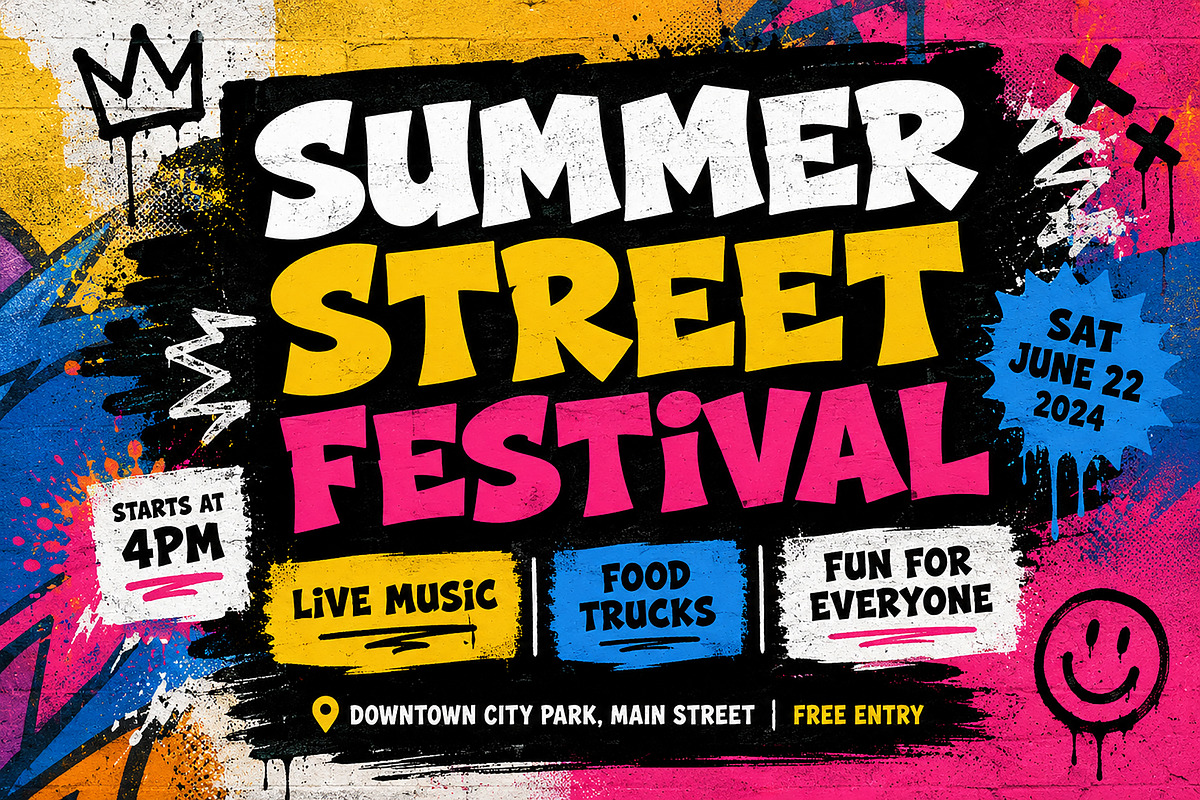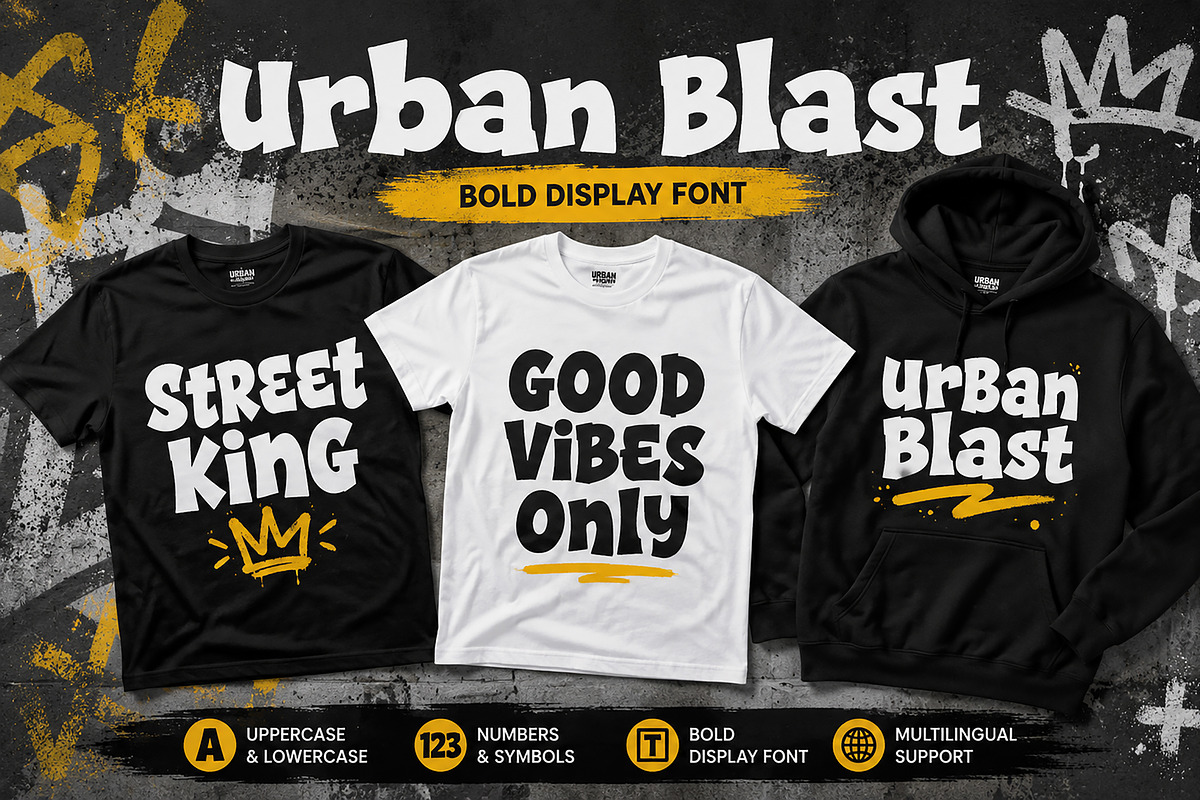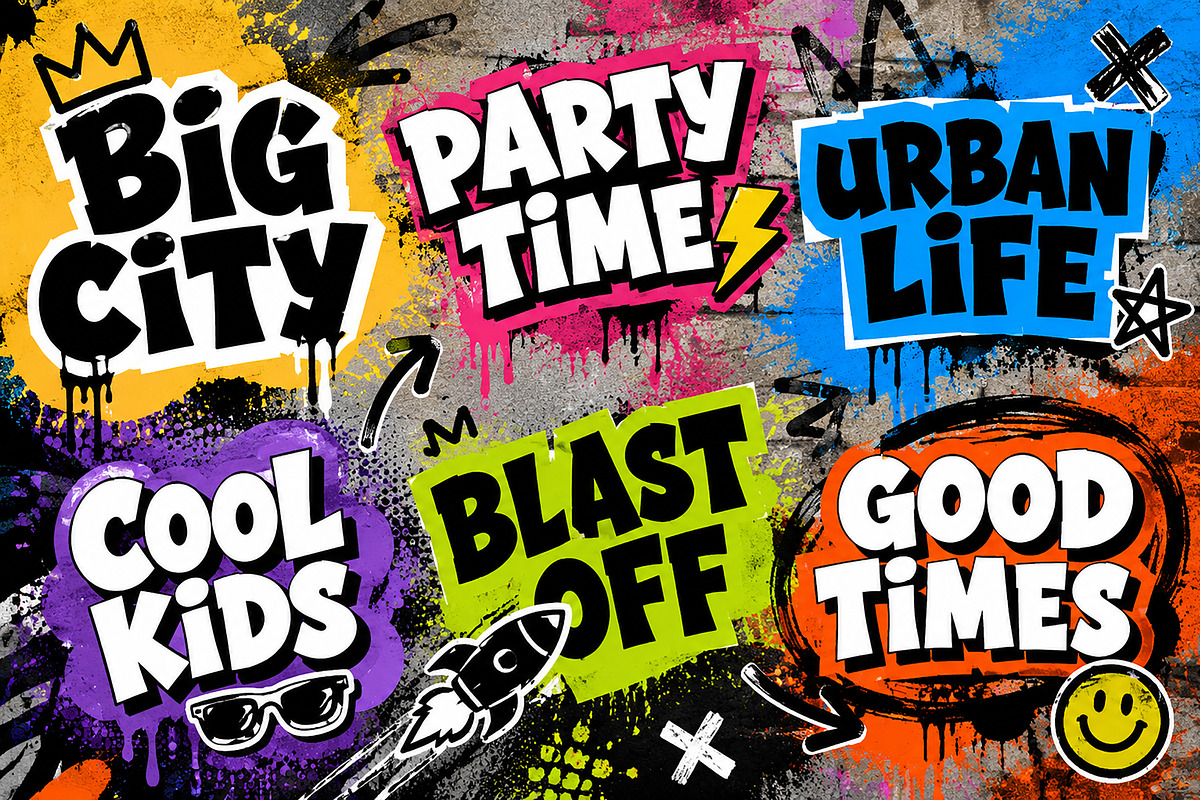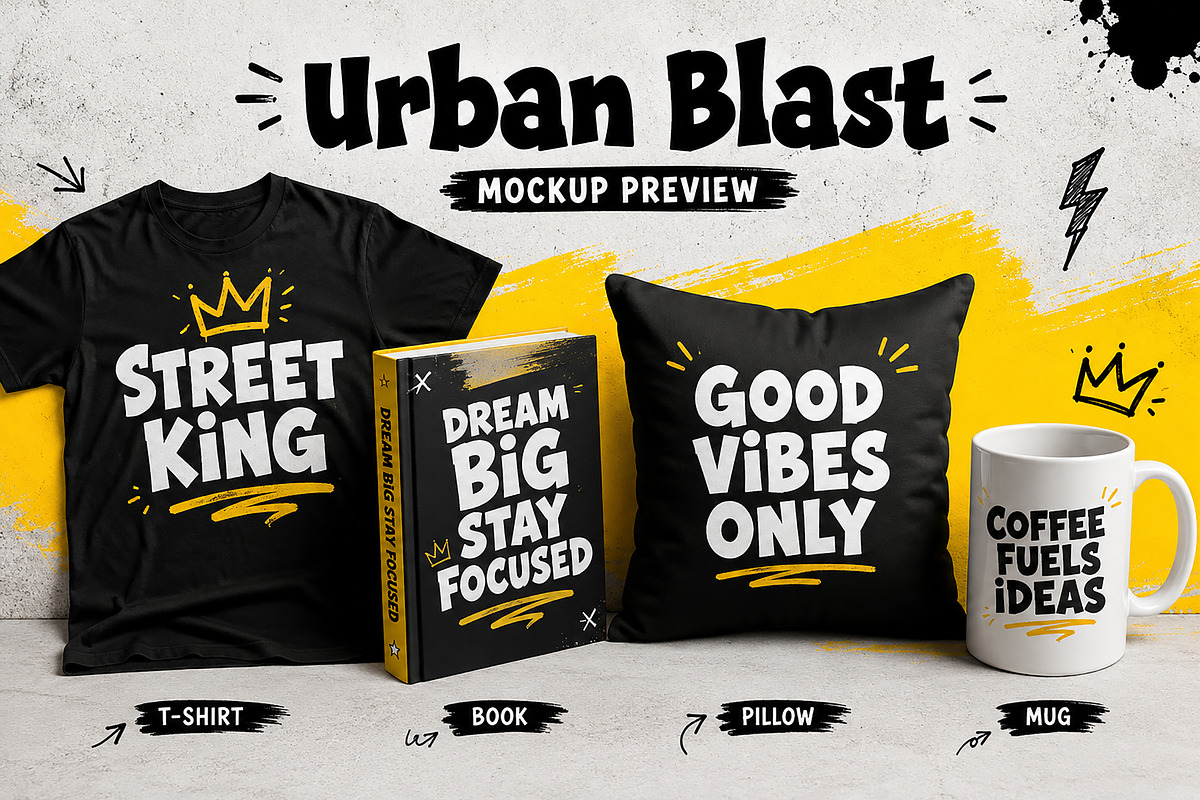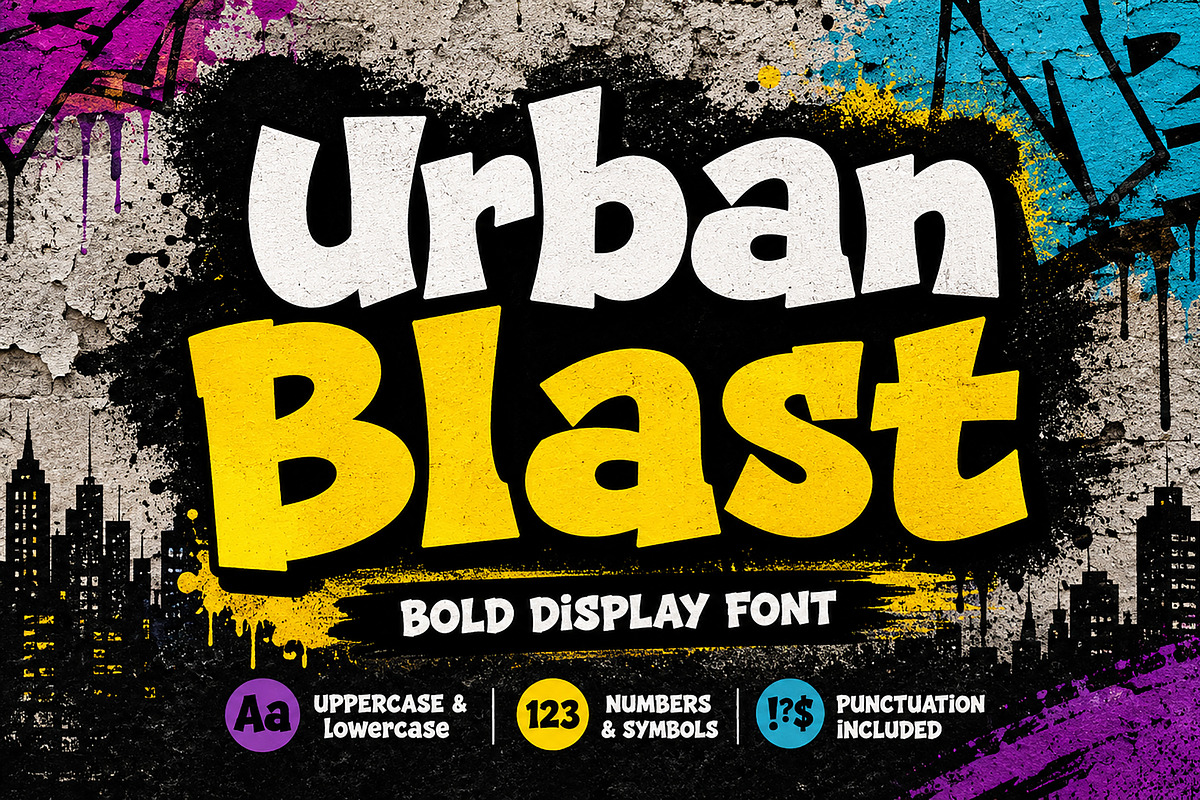
Urban Blast
Urban Blast – Bold Display Font
Bring energy, fun, and personality to your designs with Urban Blast, a bold display font inspired by street culture, graffiti art, comic lettering, and urban creativity. Its chunky shapes, playful curves, and eye-catching style make it perfect for projects that need a strong and memorable visual impact.
Whether you're creating posters, t-shirts, social media graphics, branding, packaging, or kids' designs, Urban Blast helps your text stand out instantly.
T-Shirt Designs
Streetwear Branding
Posters & Flyers
YouTube Thumbnails
Children's Products
Stickers & Labels
Event Promotions
Comic & Cartoon Designs
Merchandise Designs
Packaging Projects
Fun Branding
✔ Uppercase Letters
✔ Lowercase Letters
✔ Numbers & Punctuation
✔ Multilingual Support
Create bold, fun, and unforgettable designs with Urban Blast and give your projects a vibrant urban personality.
Urban Blast is a bold display font with a playful urban style. Perfect for posters, t-shirts, branding, social media graphics, merchandise, packaging, and kids-themed projects. Includes uppercase, lowercase, numbers, punctuation, multilingual support, OTF, and TTF files.